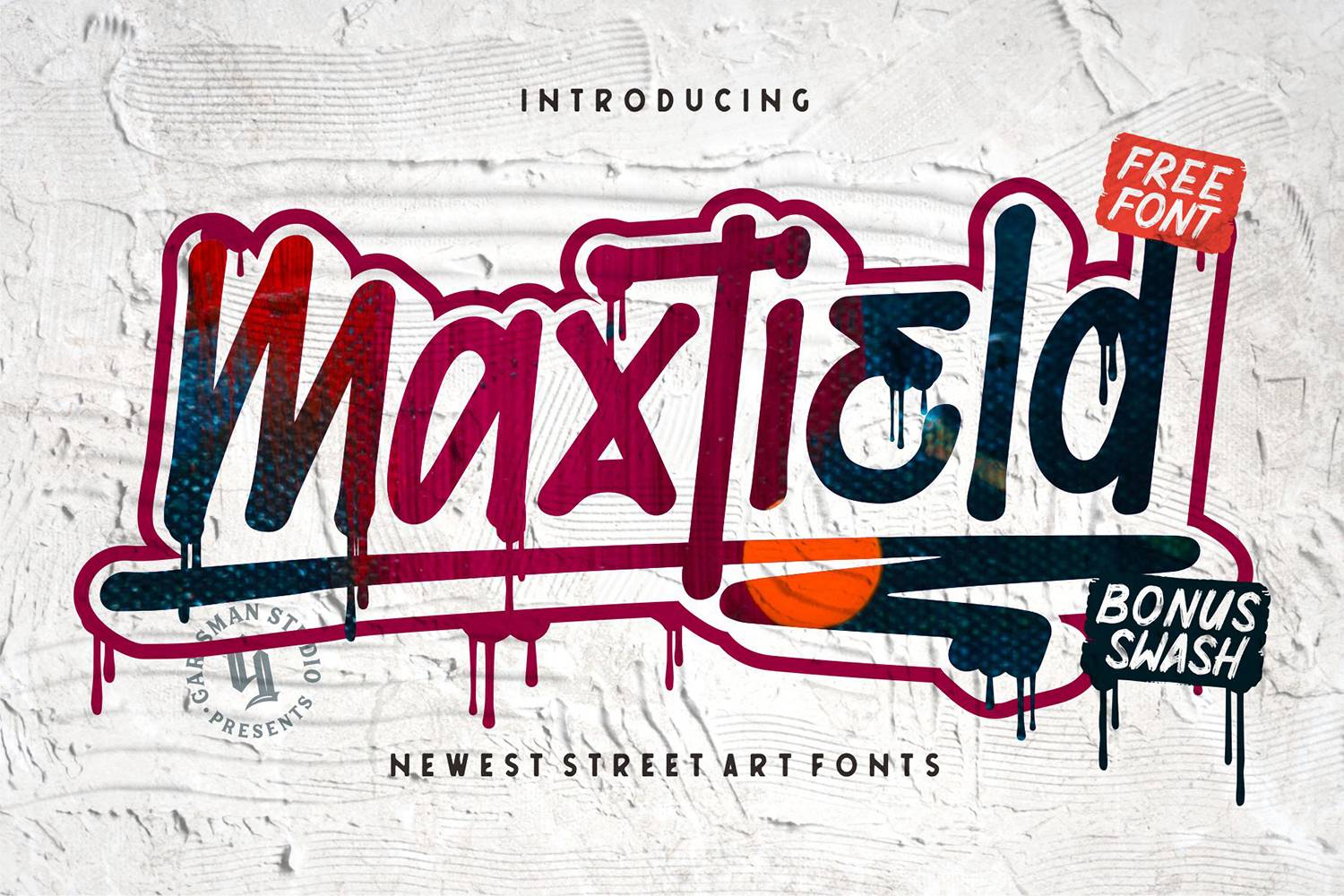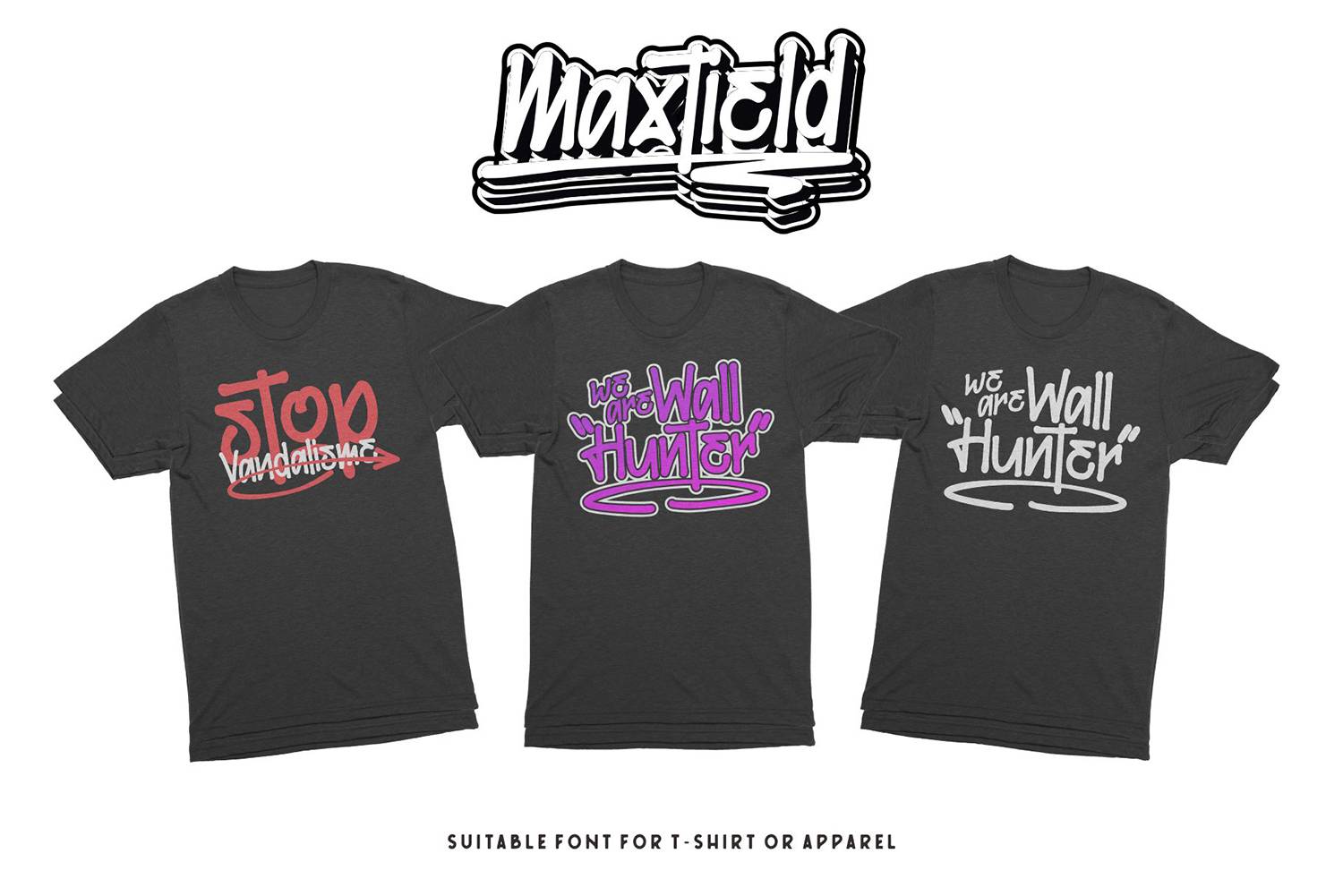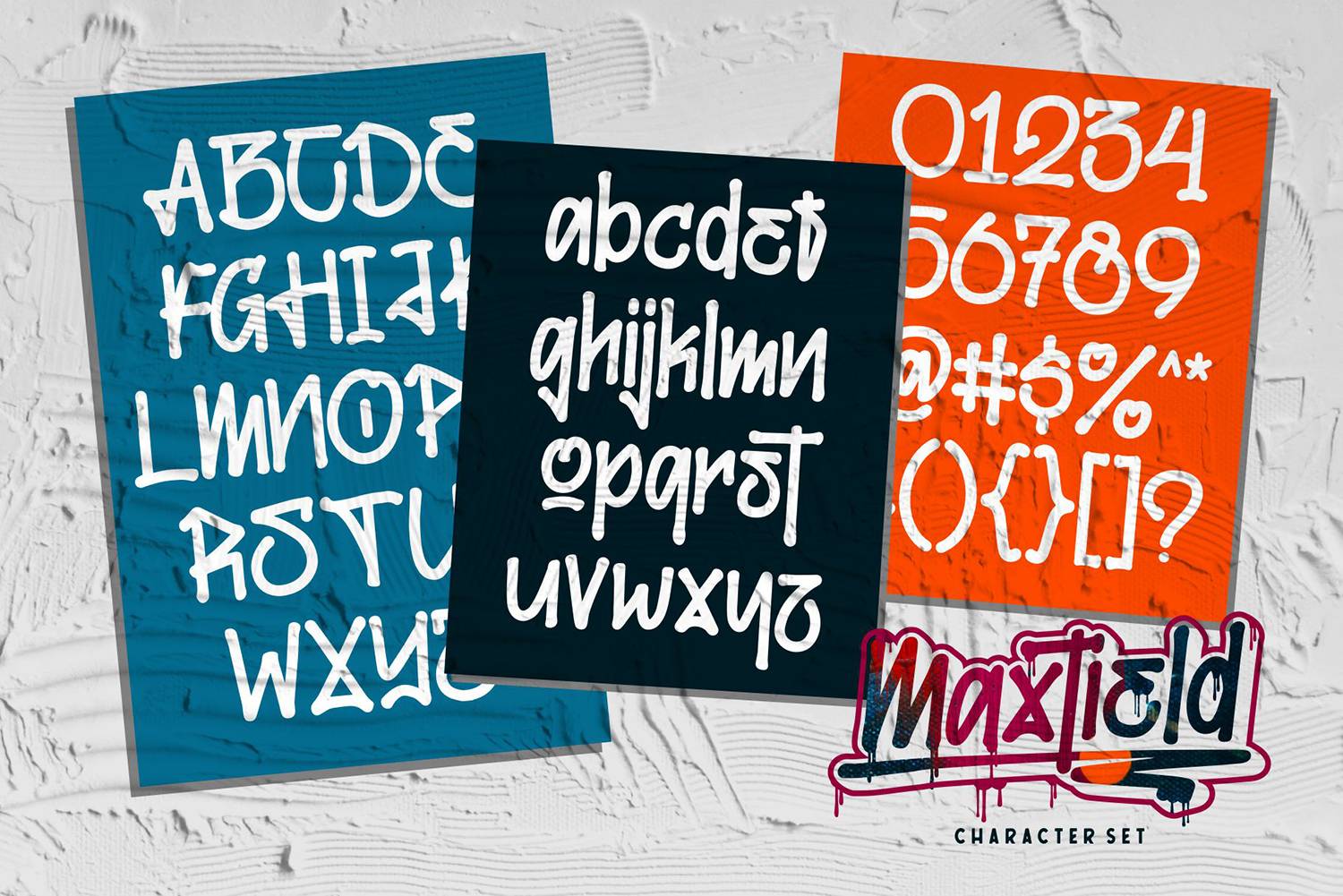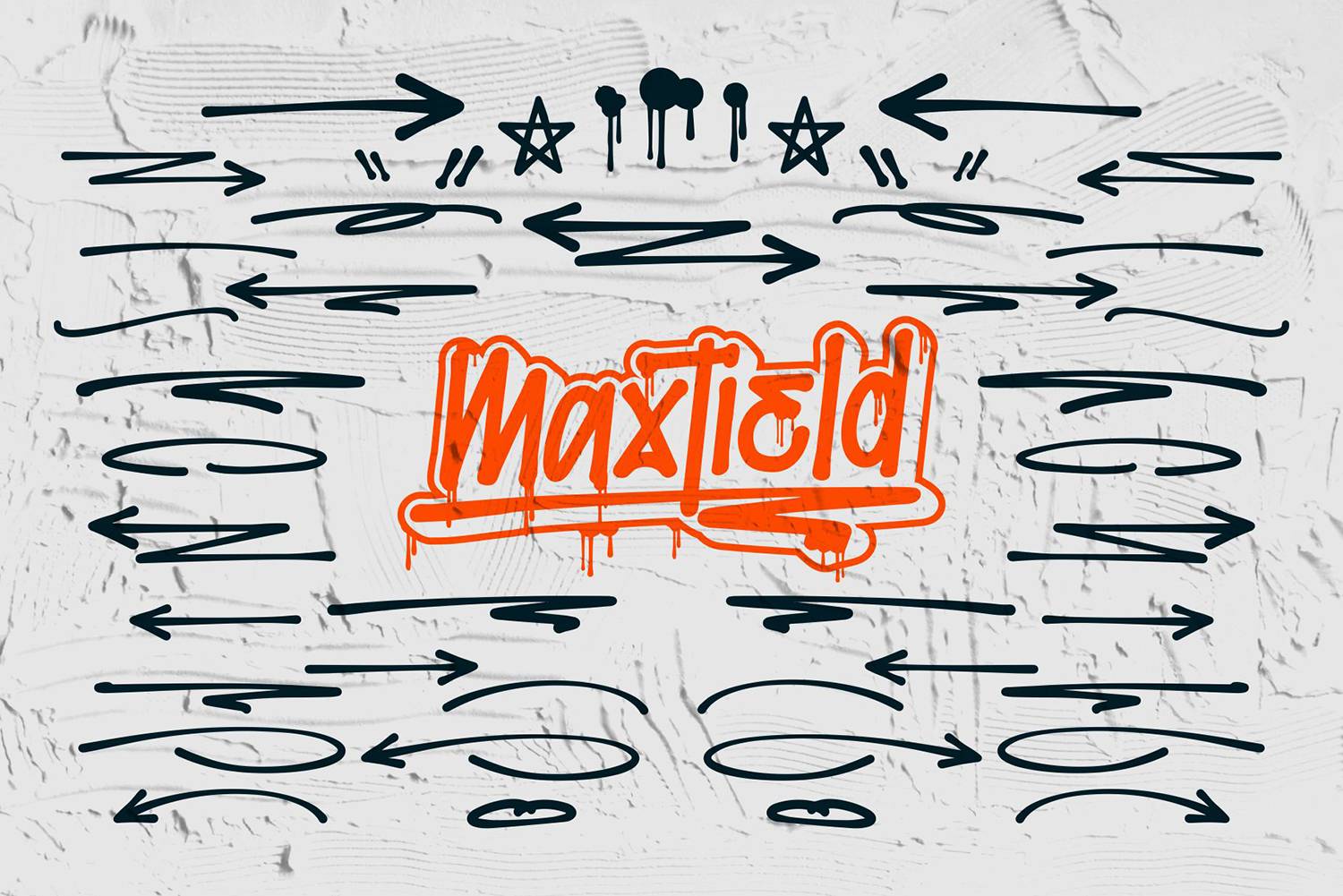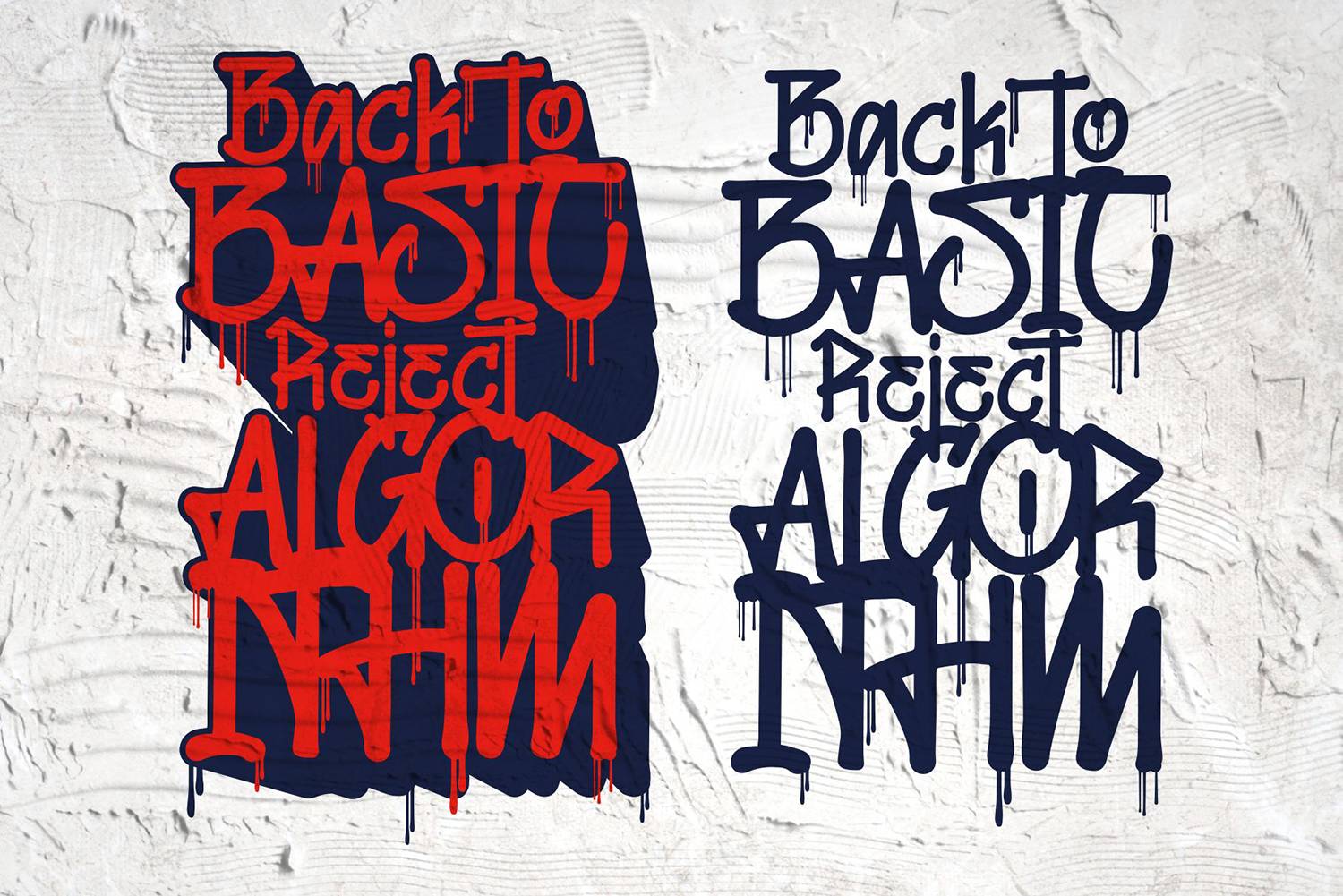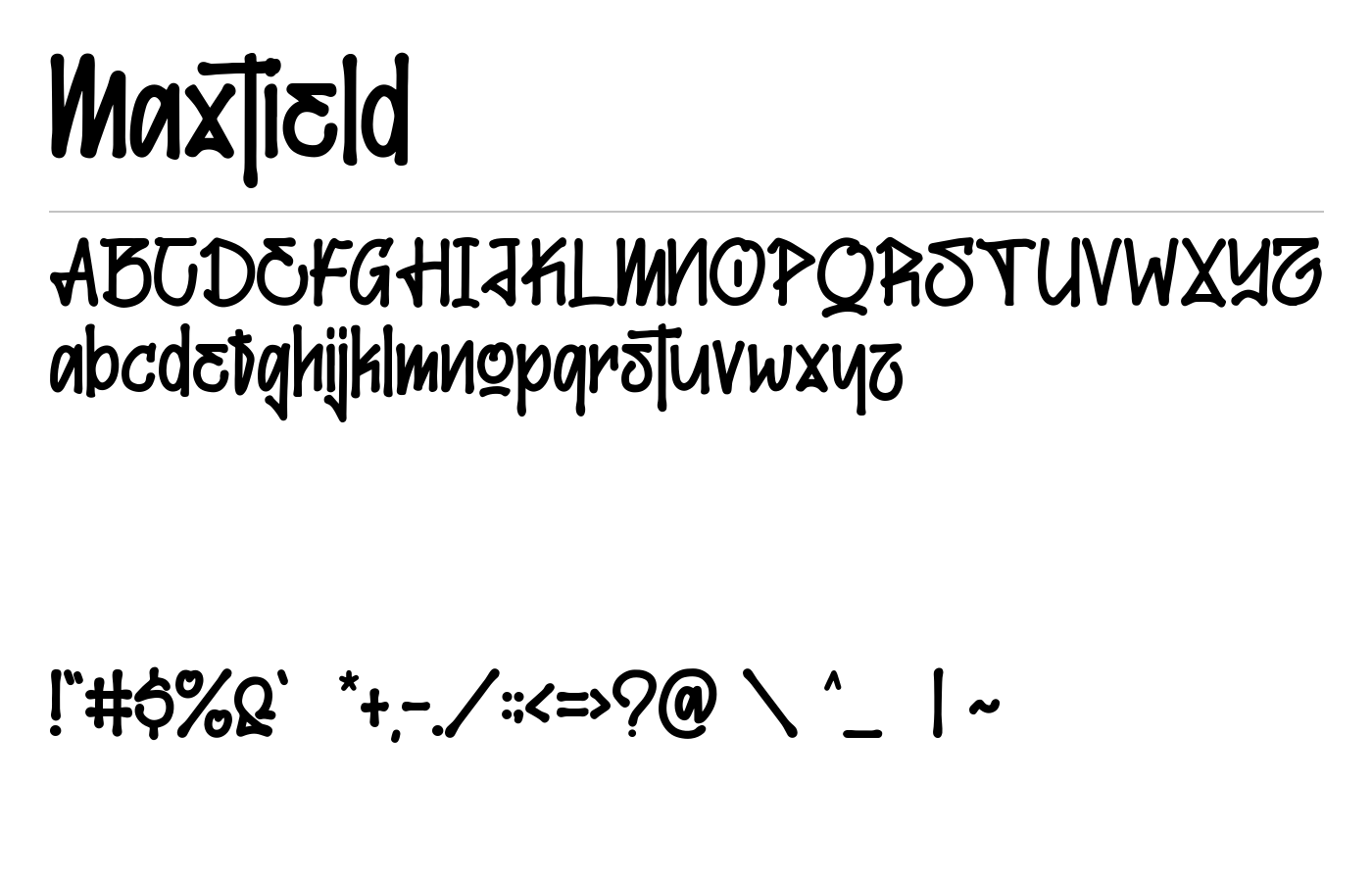
Maxtield is a playful, hand-drawn sans serif font with a quirky, casual feel. Its irregular, tall letterforms and whimsical character shapes give it a fun, energetic personality, making it ideal for creative projects, children’s materials, or informal branding that wants to stand out with a unique, lively vibe. This font works best in headlines, logos, and posters where its distinct style can grab attention and convey a friendly, approachable tone.
Maxtield Font
About Maxtield Font